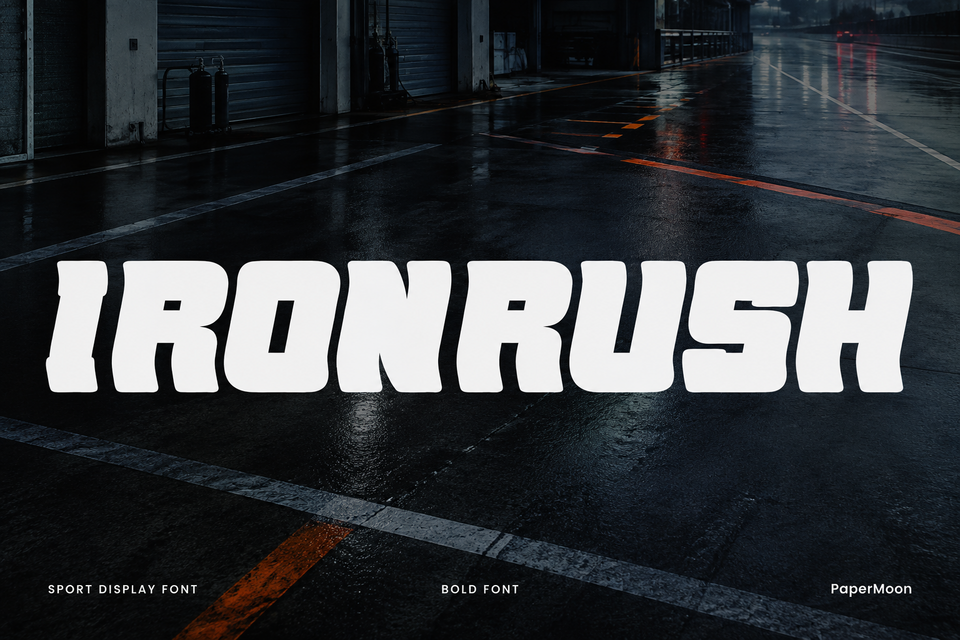
IronRush — Gym Sport Display Font
IronRush is a bold, athletic display font built for the gym and sport world—the kind of lettering that belongs on a weightlifting poster, fight-night banner, sports team uniform, or fitness app splash screen. Its heavy, confident strokes carry raw energy and grit, made for headlines and logos that need to hit hard and read instantly from across the room. This is a display typeface: give it a poster, movie title, gig flyer, album cover, or brand mark, and it does the talking.
The typeface ships as a single Regular style—one voice, no weight juggling—engineered for maximum visual impact on large text. The font includes OpenType kerning (kern) and ligatures (liga), so letter pairs sit tightly together and common character combinations join into connected forms for a smoother, more professional finish out of the box. That careful spacing matters in display work, where every gap and overlap is visible at large sizes.
- Bold athletic letterforms—heavy, confident strokes with gym-and-sport energy.
- OpenType ligatures (liga)—connected character pairs for a clean, professional finish.
- Careful kerning (kern)—tight, consistent spacing that holds up at poster size.
Where it shines: gym and fitness branding, sportswear and team logos, posters and event flyers, movie titles and film credits, gig posters, album covers, product labeling, esports and gaming banners, T-shirt and apparel graphics—anywhere you need type that punches.